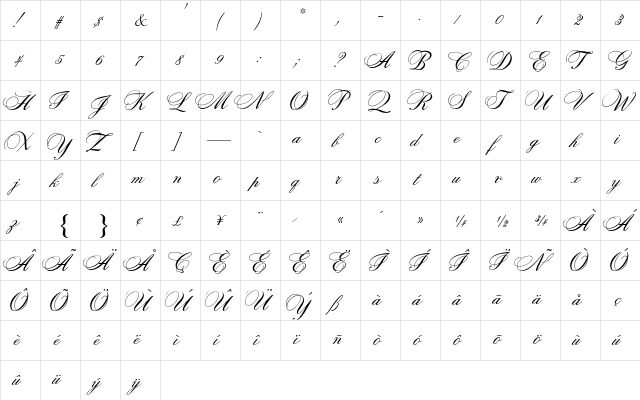
Citadel Script AT Regular
Design Context for Citadel Script AT Typeface
Citadel Script AT brings a calligraphic fluidity to the page — its connecting strokes and expressive curves give it an unmistakably human quality.
Font Pairing: Combine Citadel Script AT with a simple geometric sans for maximum contrast — the tension between flowing curves and clean structure is a classic typographic pairing.
Pro Tip: Use Citadel Script AT for short runs of text — names, titles, or taglines. Extended body copy in script faces tires the eye quickly.